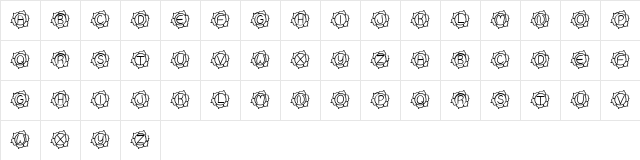
JI Sunflower Regular
Design Context for JI Sunflower Typeface
JI Sunflower is a composed and adaptable typeface that performs quietly and consistently across a wide range of design contexts.